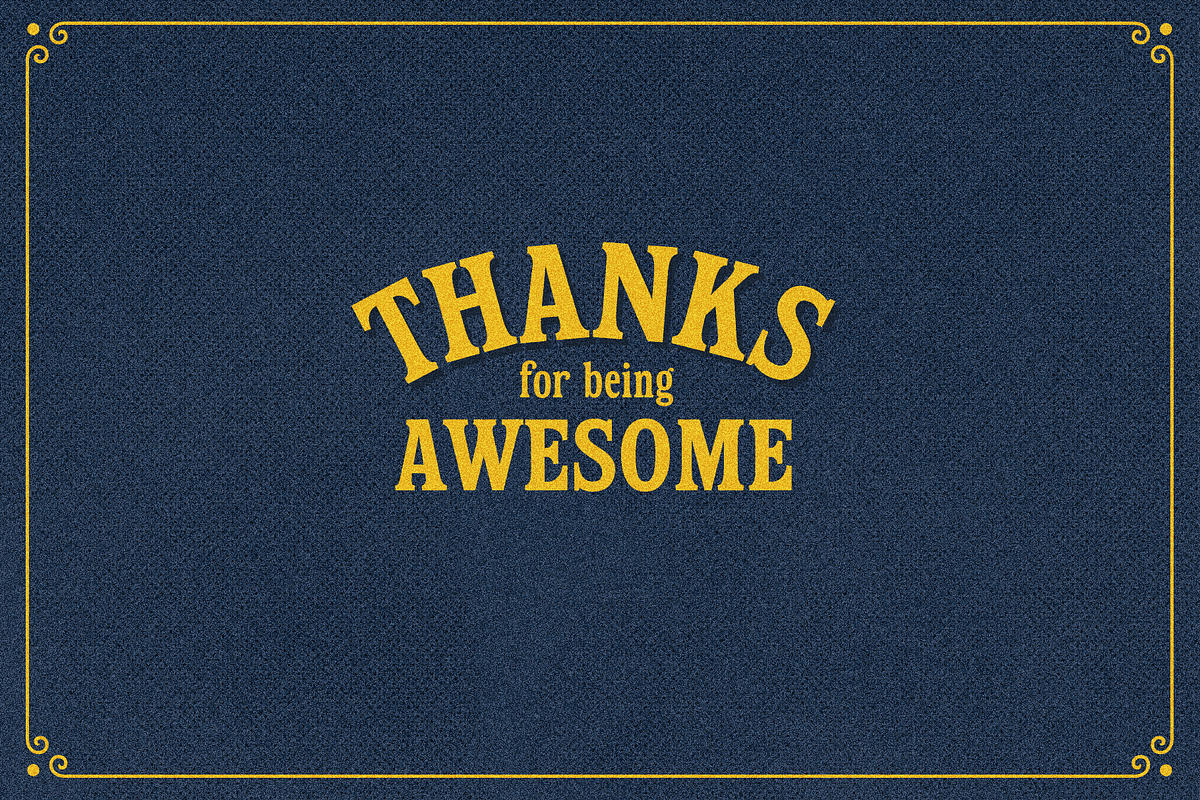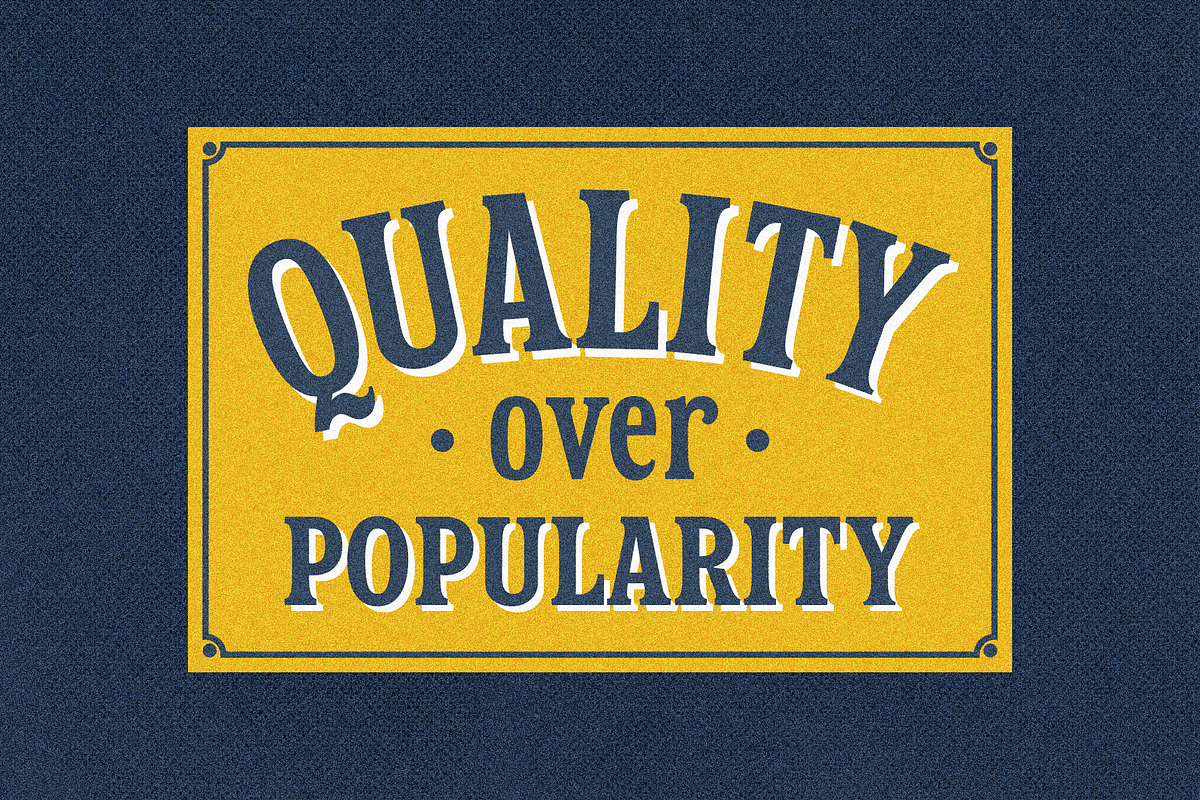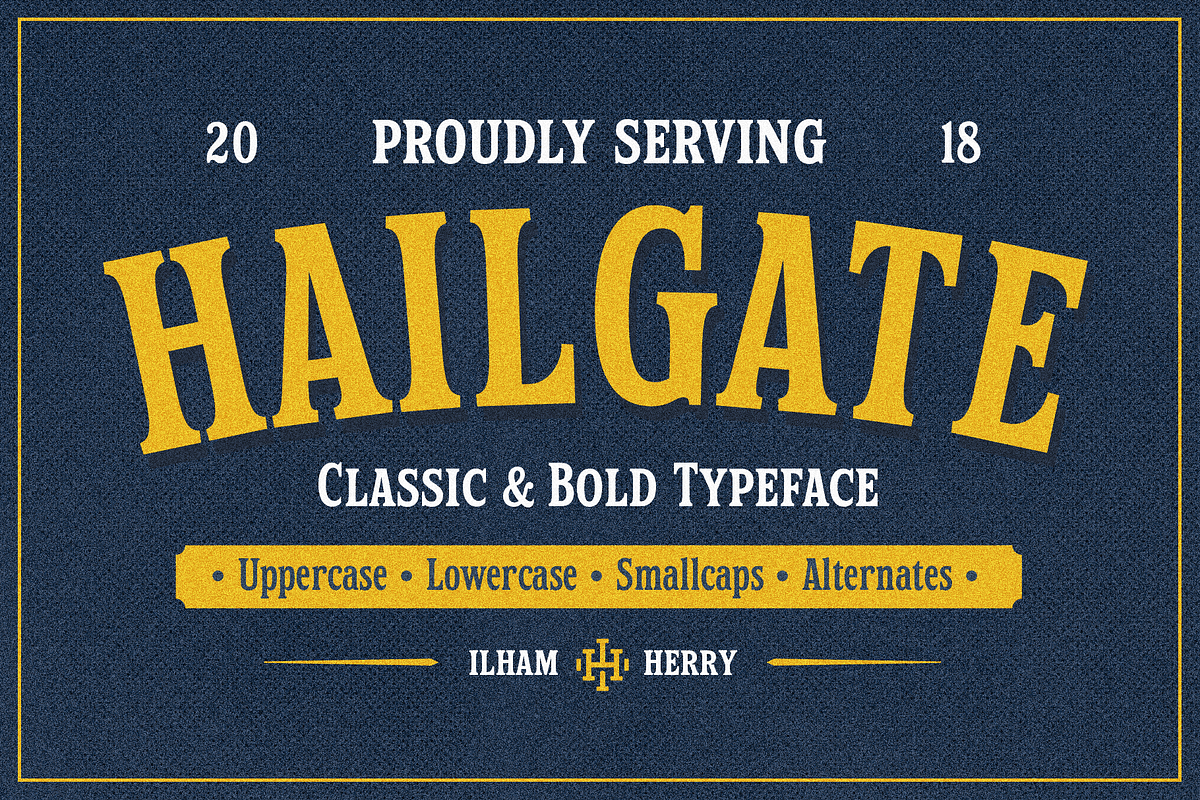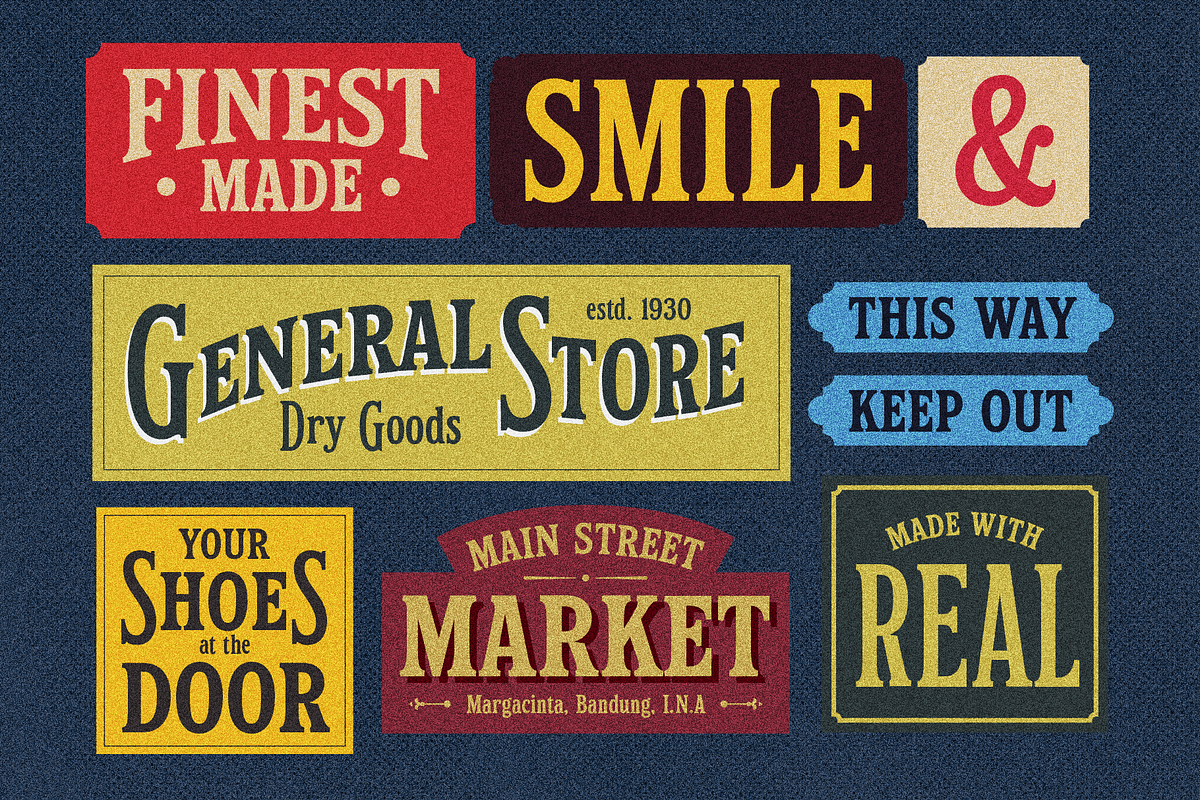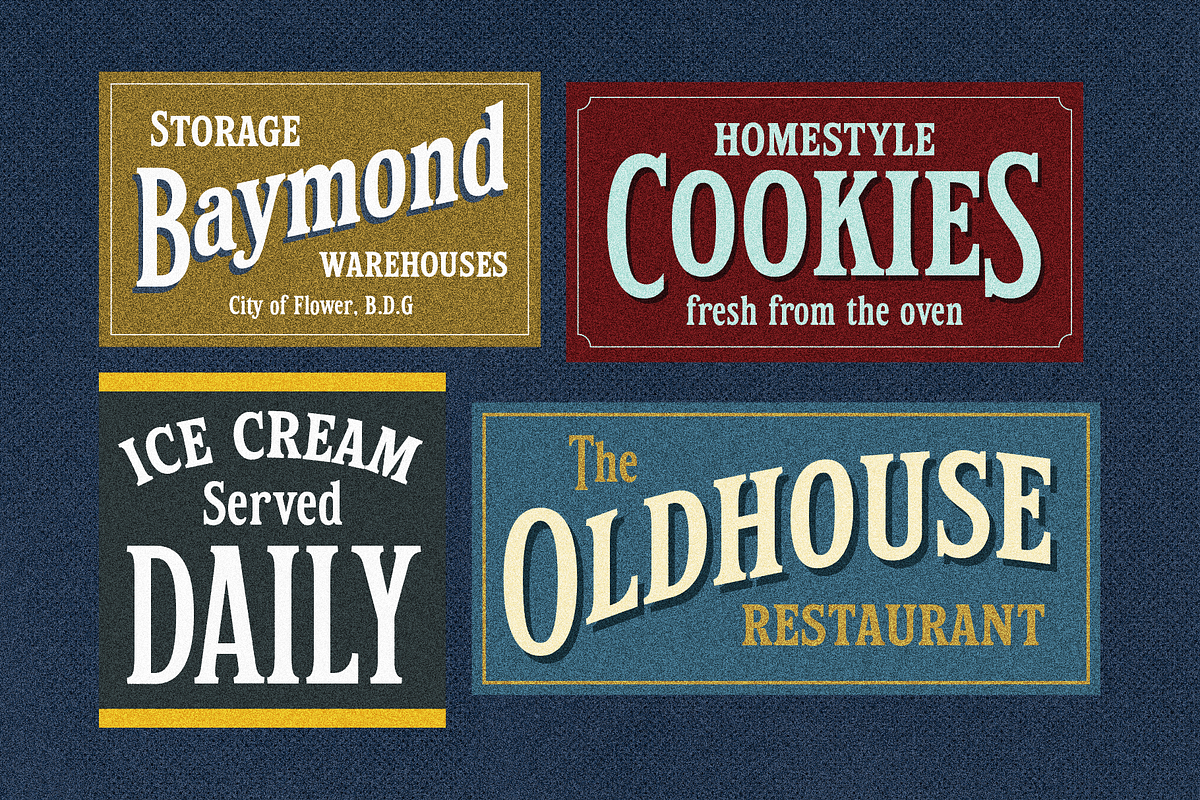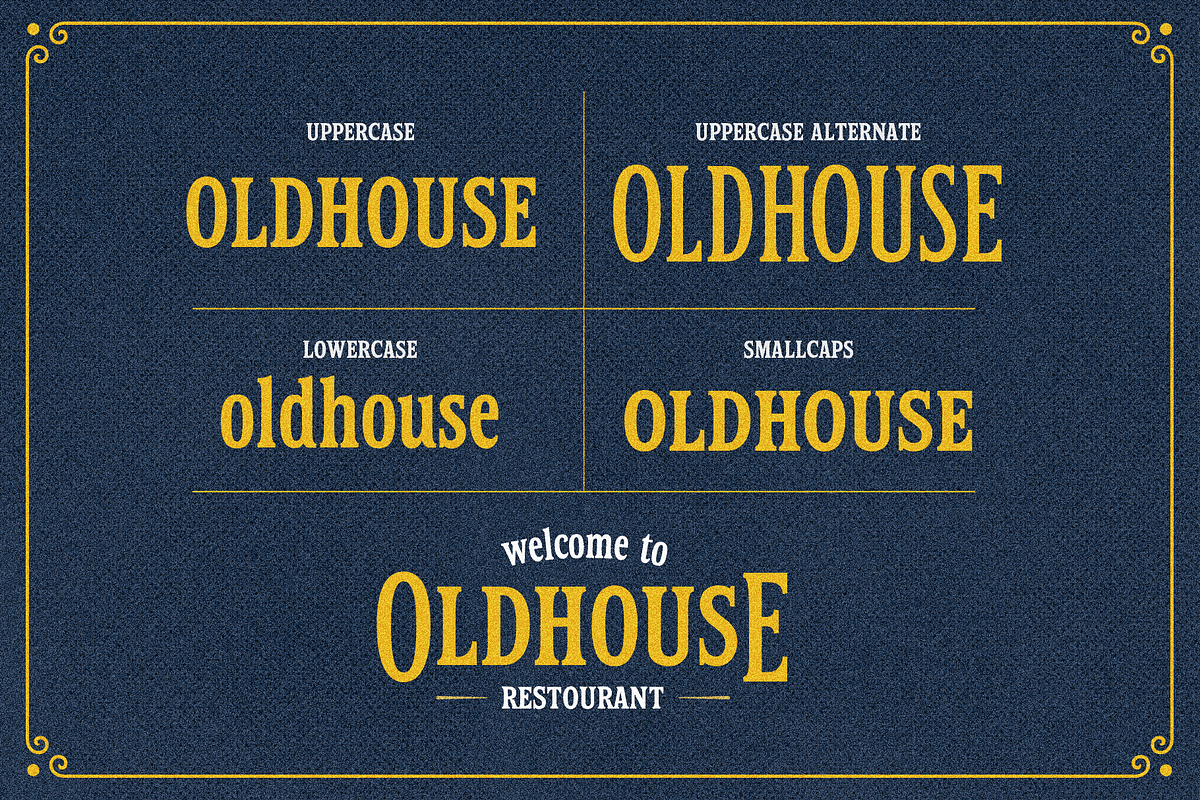
Hailgate Display Font
Introducing new classic and bold display font it's call HAILGATE. Inspired from antique trade signage, with alternate character of uppercase and smallcaps feature, many possibilities combination and options. As a display typeface HAILGATE is suitable for headlines, logotypes, signs, posters, greeting card, letterhead, t-shirt, and many more.
- Inspired from antique trade signage, with alternate character of uppercase and smallcaps feature, many possibilities combination and options
Hailgate Display Font by Ilham Herry fits naturally into Branding, posters, packaging, typography.